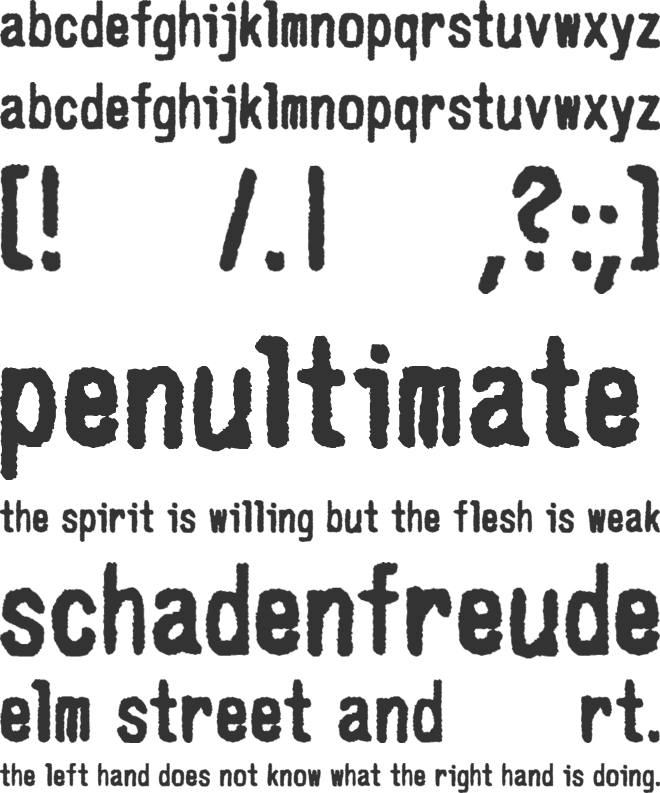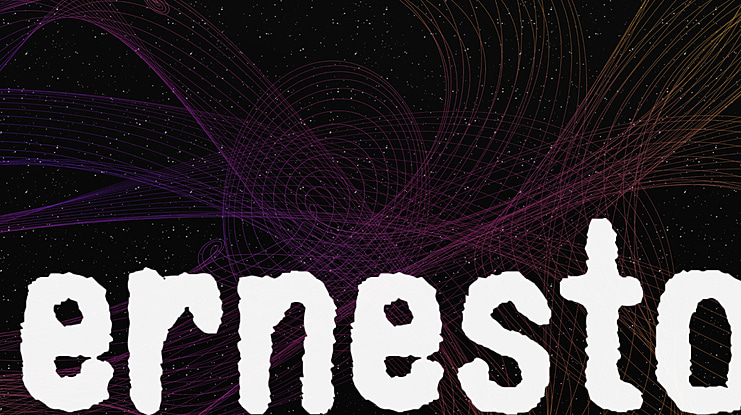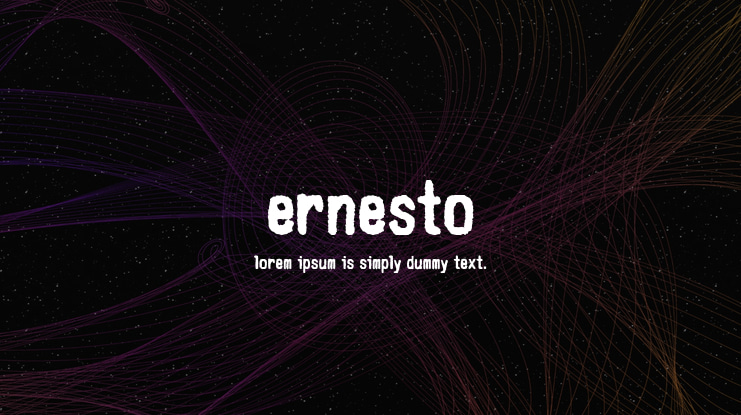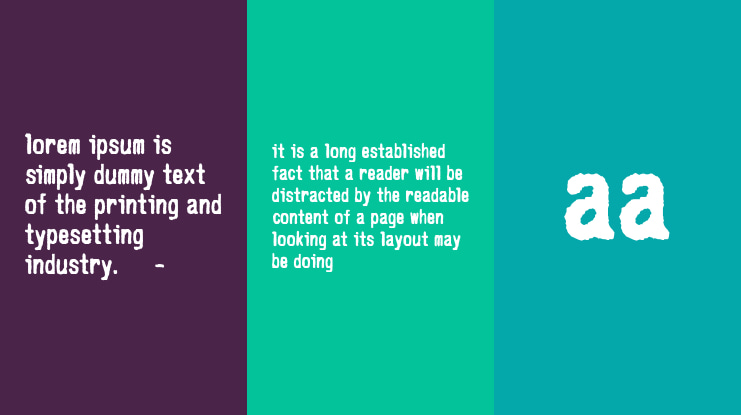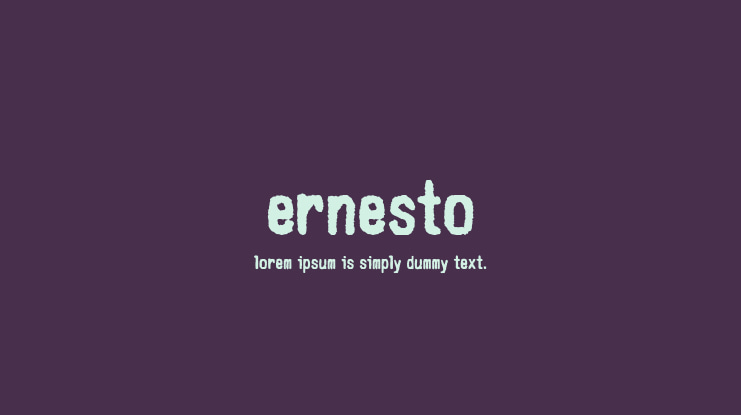
Ernesto Font
"Ernesto" is freely inspired by old typewriters. This font is free for personal use. If you wish to use it for a commercial purpose, please contact me: contact [at] fthafm [dot] com